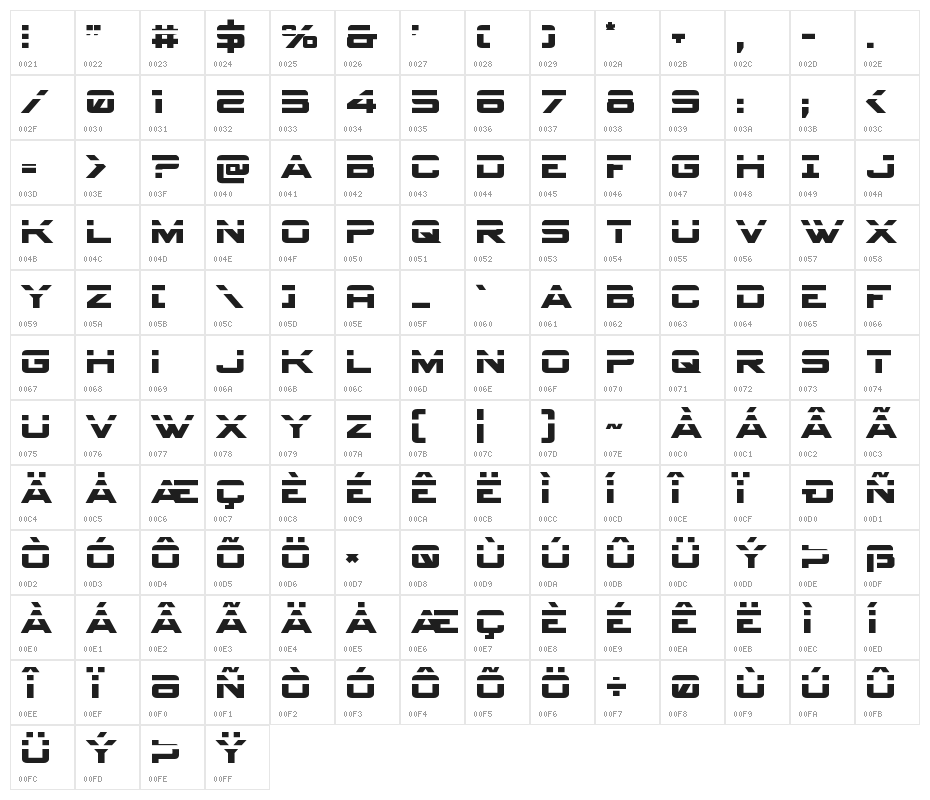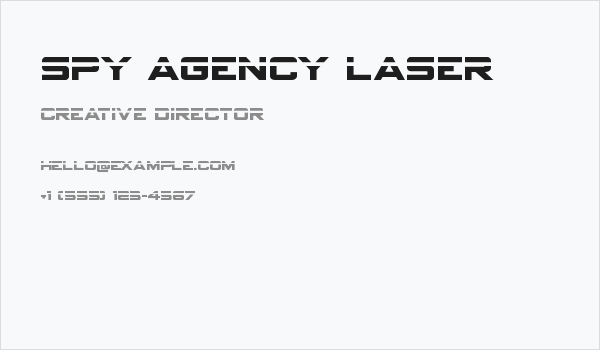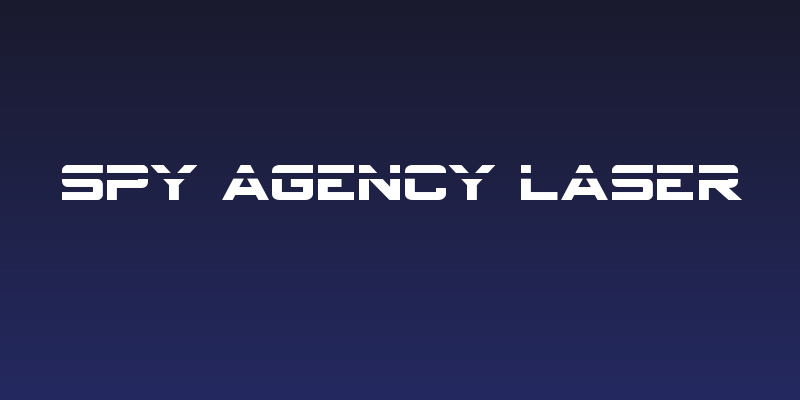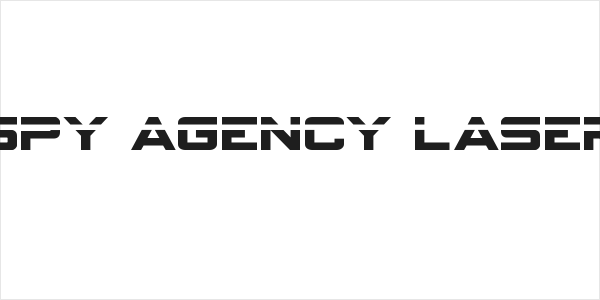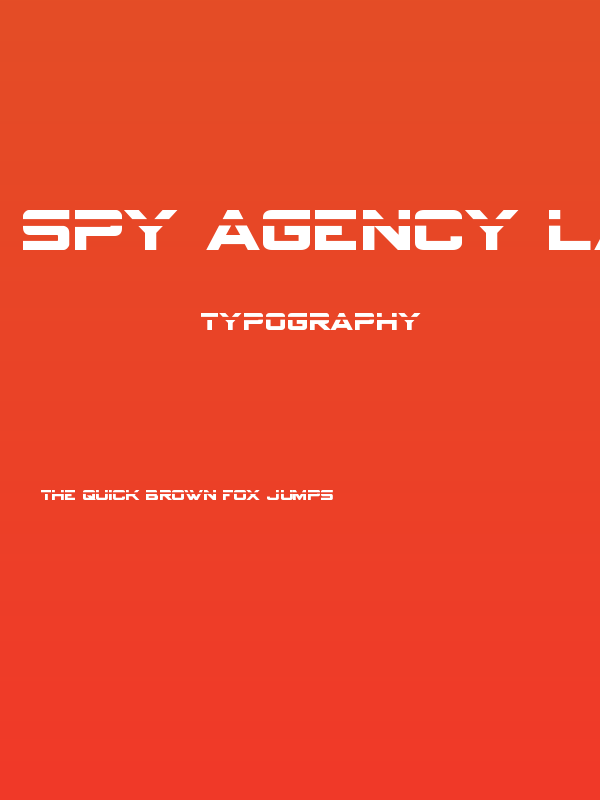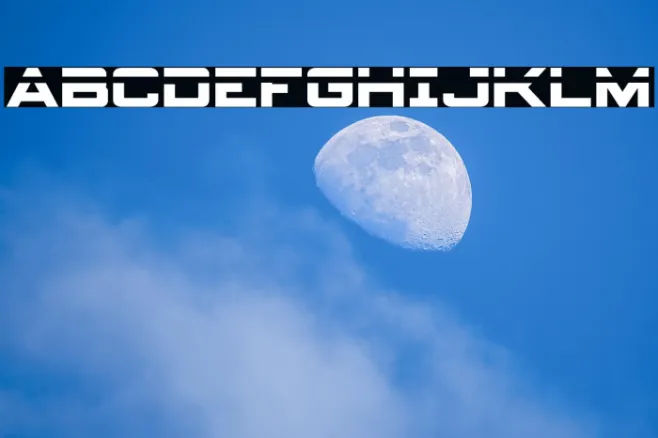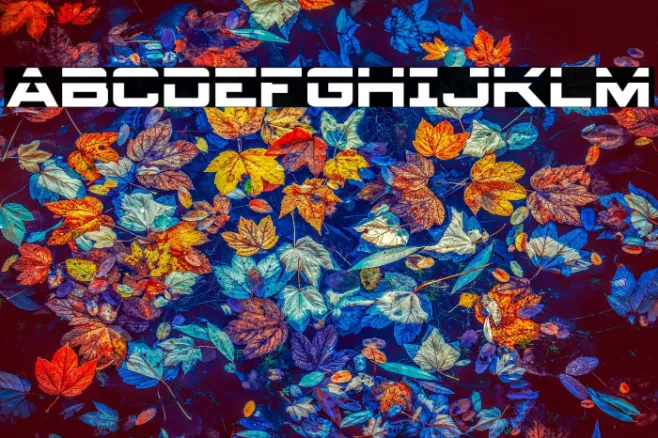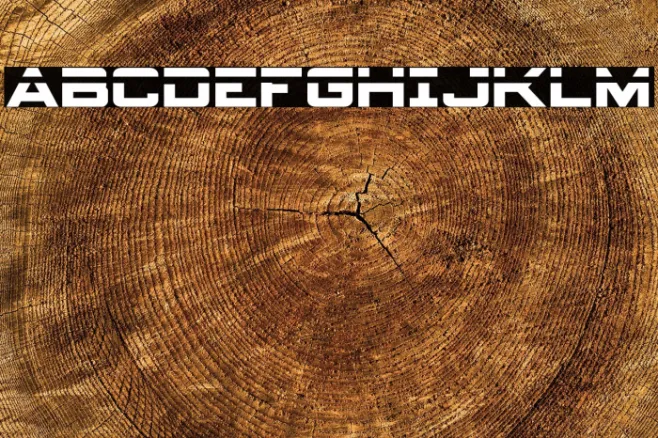
Spy Agency Laser Font
Spy Agency Laser Description
This font features a futuristic and angular design, characterized by sharp edges and geometric shapes. The letters are bold and have a distinct stencil-like appearance, with breaks in the strokes that give it a high-tech, industrial feel. The uppercase and lowercase letters maintain a consistent style, while the numbers and special characters complement the overall aesthetic. The font's unique style makes it stand out, ideal for projects that require a modern and edgy look.
| Proposed Projects | Ideal for technology branding, sci-fi movie posters, video game titles, and modern advertising campaigns. |